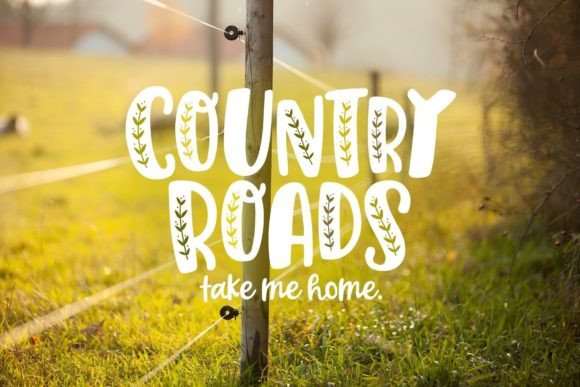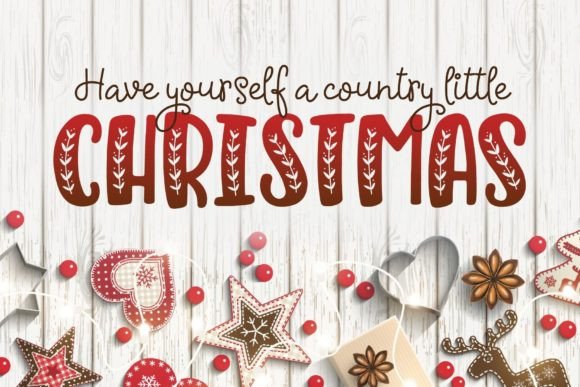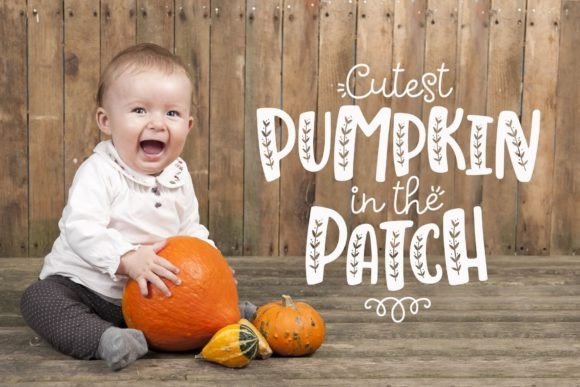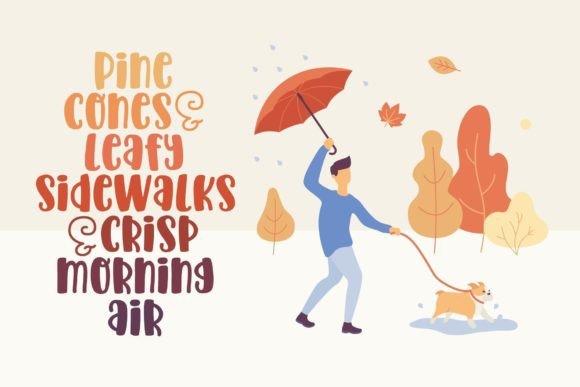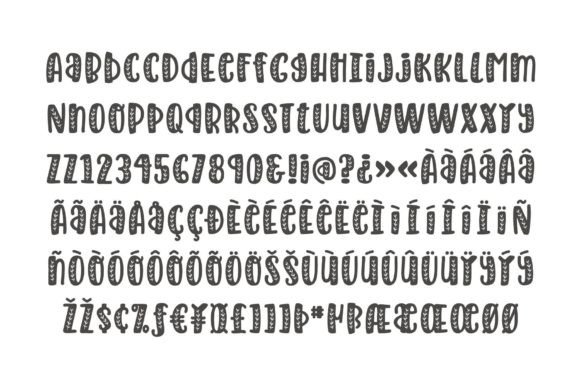
The Sweet Charm of Acres Font: A Designer’s Delight
I still remember the design project that led me to discover Acres Font. I was working on a festive holiday campaign for a client who wanted a bold, country-inspired look. I scoured font libraries and marketplaces, but nothing seemed quite right – until I stumbled upon Acres. Its sweet, condensed design instantly captured the essence of a rustic holiday feel. I knew right then and there that Acres Font was going to be a game-changer for my designs.
An Honest Review of Acres Font
• ✨ Bold and condensed design that adds a festive touch to any project
• ✅ Versatile – works well for both large and small sizes, depending on the design needs
• 🌿 Country-inspired aesthetic that’s perfect for farmhouse-style designs or rustic themes
• 🎉 Festive holiday pop that adds a fun and playful vibe to designs
While Acres Font is an excellent choice for many designs, there are a few things to keep in mind:
• 🤔 Legibility at small sizes – while the solid version can be used at smaller sizes, it’s best to use Acres at larger sizes where the details can shine
• ⚠️ Overuse – as with any bold font, use Acres sparingly to avoid overwhelming the design
The Designer’s Inspiration Behind Acres Font
Acres Font was inspired by the rolling hills and countryside landscapes of rural America. The designer aimed to capture the essence of a rustic, country feel in a bold, condensed font that’s perfect for making a statement.
Q: What type of designs is Acres Font best suited for?
A: Acres Font is ideal for designs that require a bold, country-inspired look, such as festive holiday campaigns, farmhouse-style branding, and rustic-themed projects.
Q: Is Acres Font available in different weights or styles?
A: While Acres Font is primarily available in a bold, condensed style, some variations may be available, such as a regular or italic version.